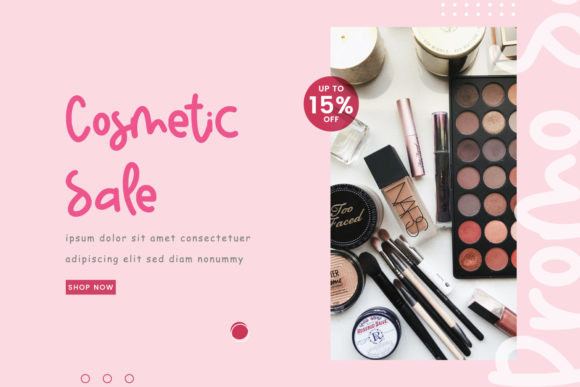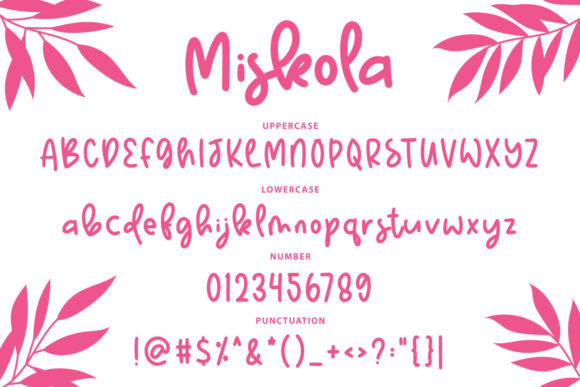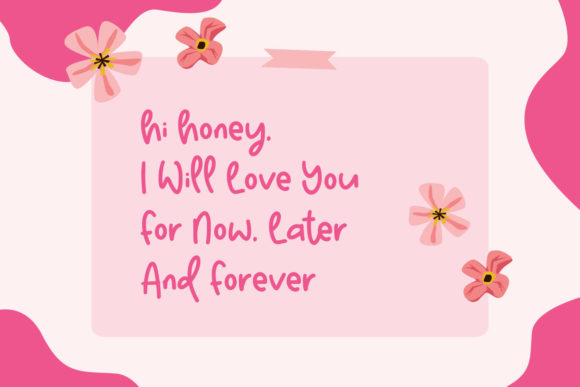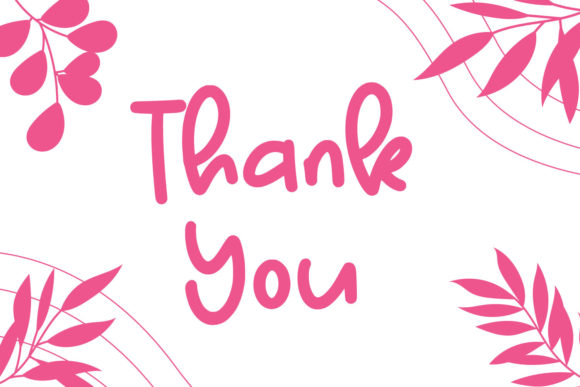
About Miskola Font
Miskola is a cute and quirky handwritten font. Joyful and relaxed, this font is suitable for a variety of projects such as cards, calendars, t-shirts, quotes, Instagram posts, logos, branding and so much more.